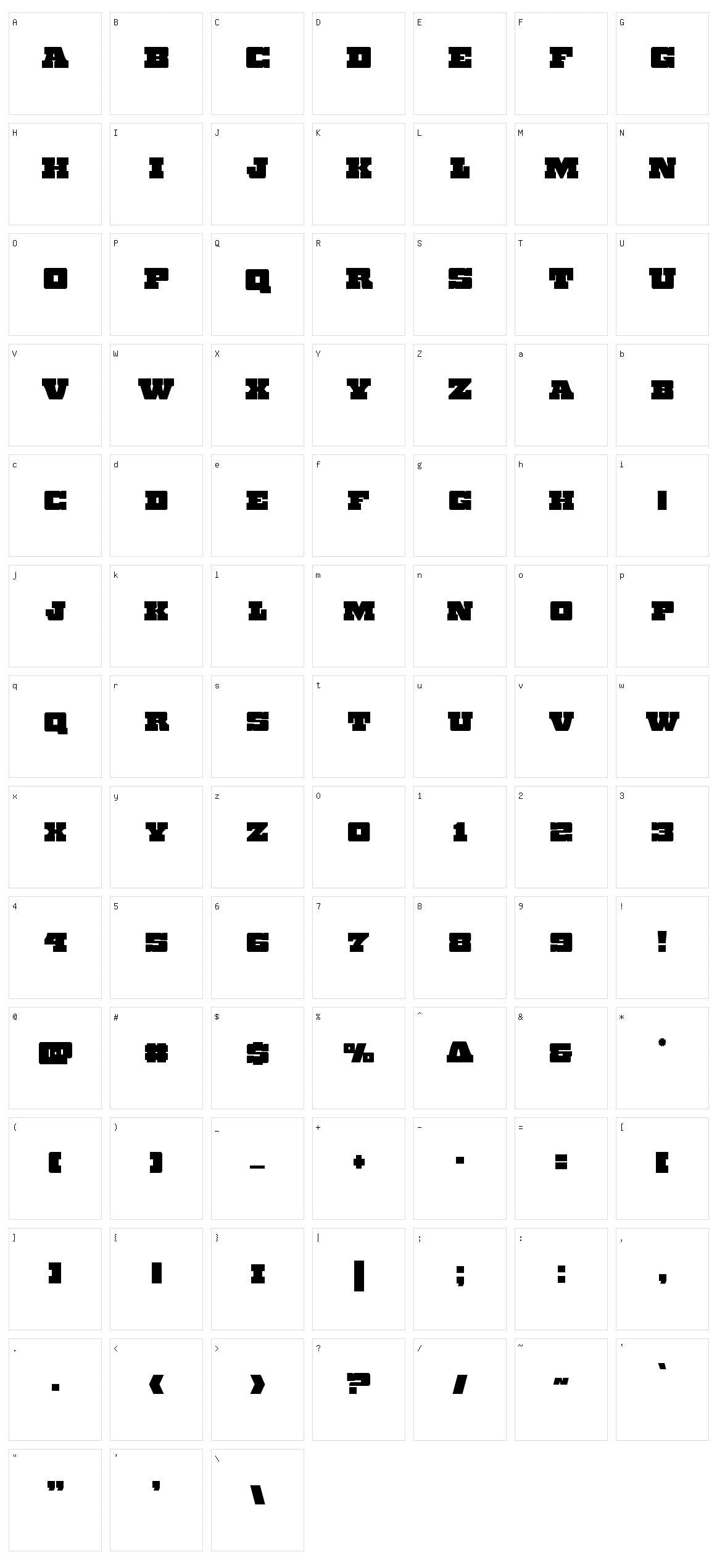
The free font Chicago Express is carefully designed by Iconian Fonts, showcasing a thoughtful balance of creativity and usability and falls under the Western font style. When you download the ZIP file, it contains only 657.68 KB of font files, making it lightweight and quick to download. Please review the license details below to understand permitted usage and distribution rights. If license information is not available, we recommend using this font for personal projects only or contacting the author directly for commercial usage permissions.
This font comes with the following 27 versions: Regular, Italic, Semi-Italic, Super-Italic, Leftalic, Condensed, Condensed Italic, Expanded, Expanded Italic, 3D, 3D Italic, Outline, Outline Italic, Gradient, Gradient Italic, Halftone, Halftone Italic, Laser, Laser Italic, Title, Title Italic, Chrome, Chrome Italic, Punch, Punch Italic, Engraved and Engraved Italic.